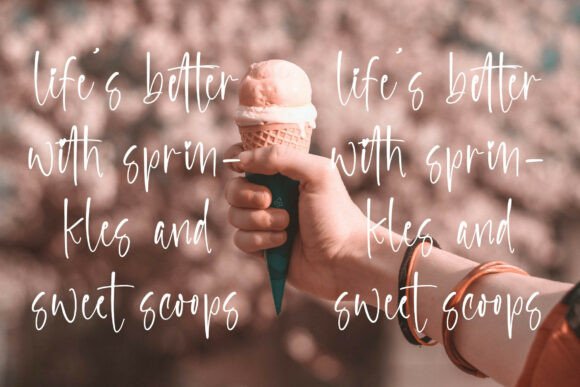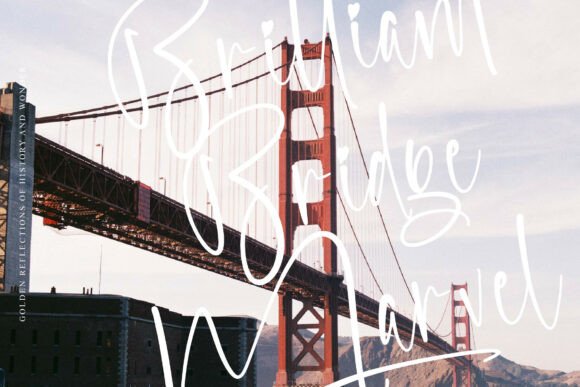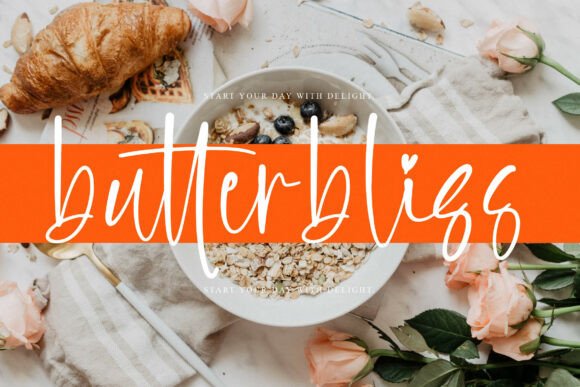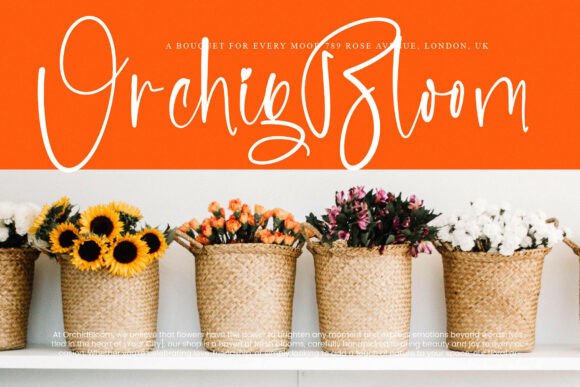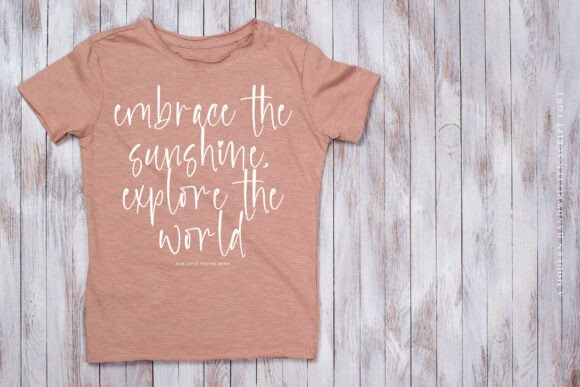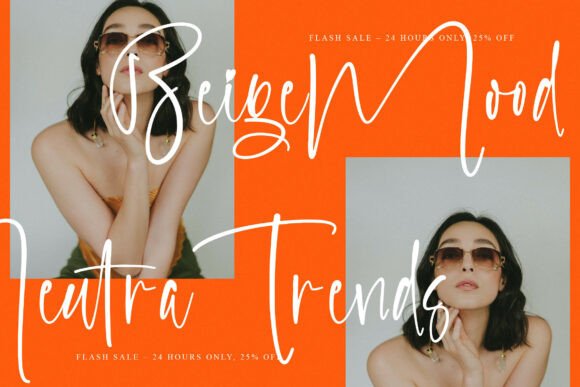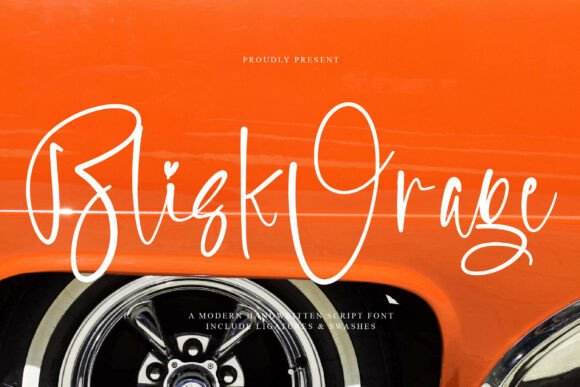
The Blisk Orage Font: A Playful yet Elegant Script for Romantic Projects
I’ll never forget the time I was working on a Valentine’s Day project for a client, and I just couldn’t find the right font to capture the essence of love and playfulness. The client wanted something that would make their social media posts stand out, but I was stuck in a font rut. That’s when I stumbled upon the Blisk Orage font, and it was love at first sight! 💘
Blisk Orage is a script font that combines whimsical letterforms with heart-themed accents, making it perfect for romantic projects, social media content, or boutique branding. In this article, I’ll share my honest review of the font, provide a practical guide on how to use it, and explore similar fonts that might tickle your fancy.
Honest Review: What I Love and What I Don’t
• Playful yet elegant script font that’s perfect for romantic projects
• Whimsical letterforms and heart-themed accents add a touch of charm
• Contemporary twist makes it suitable for modern branding and social media
• Easy to read and works well in various sizes
• Limited use of uppercase letters, which might be a drawback for some projects
• No italic version, which could limit its versatility
• Some users might find the heart accents too playful for certain projects
The Story Behind Blisk Orage
Blisk Orage was designed with love and care by a talented font designer who wanted to create a script font that would capture the essence of romance and playfulness. The designer drew inspiration from classic script fonts, but with a modern twist. The result is a font that’s both elegant and whimsical, perfect for a wide range of creative projects.
Q: Does Blisk Orage support OpenType features?
A: Yes, Blisk Orage supports OpenType features, including stylistic alternates and glyphs.